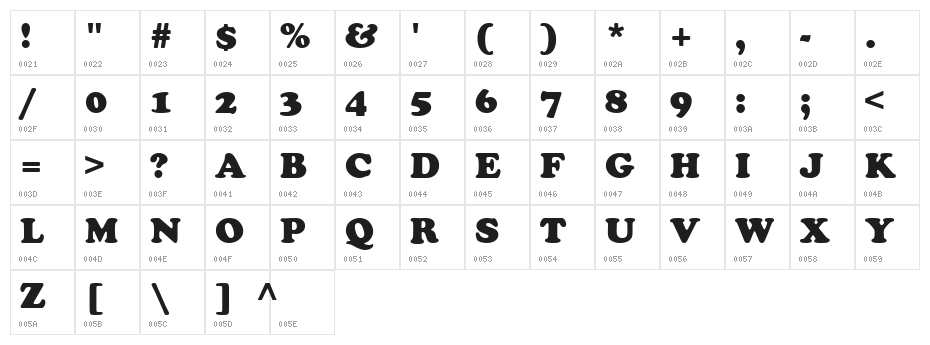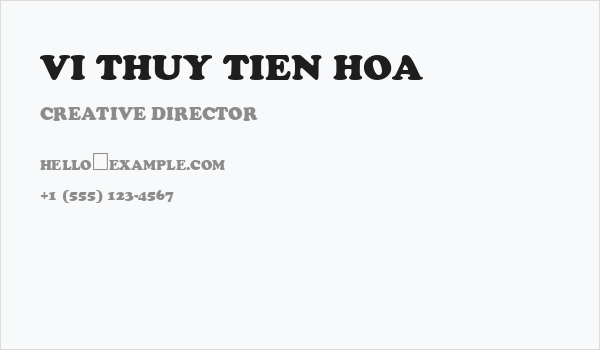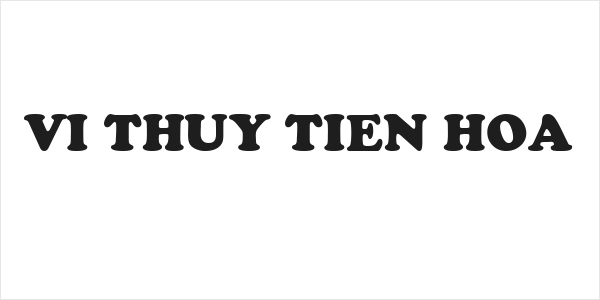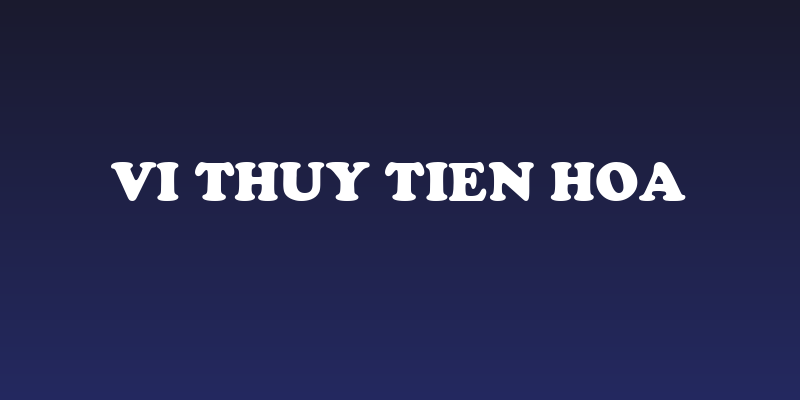
VI Thuy Tien Hoa Font
VI Thuy Tien Hoa Description
This font features bold, rounded characters with a playful and decorative style. The letters have a strong presence, with thick strokes and a slight curvature that adds a whimsical touch. The numerals and special characters maintain the same boldness and rounded edges, ensuring consistency across the character set. This font is ideal for projects that require a fun and engaging visual appeal, making it suitable for children's books, playful branding, or eye-catching headlines.
| Overall Style | Playful, Decorative |
| Proposed Projects | Ideal for children's books, playful branding, and eye-catching headlines. |